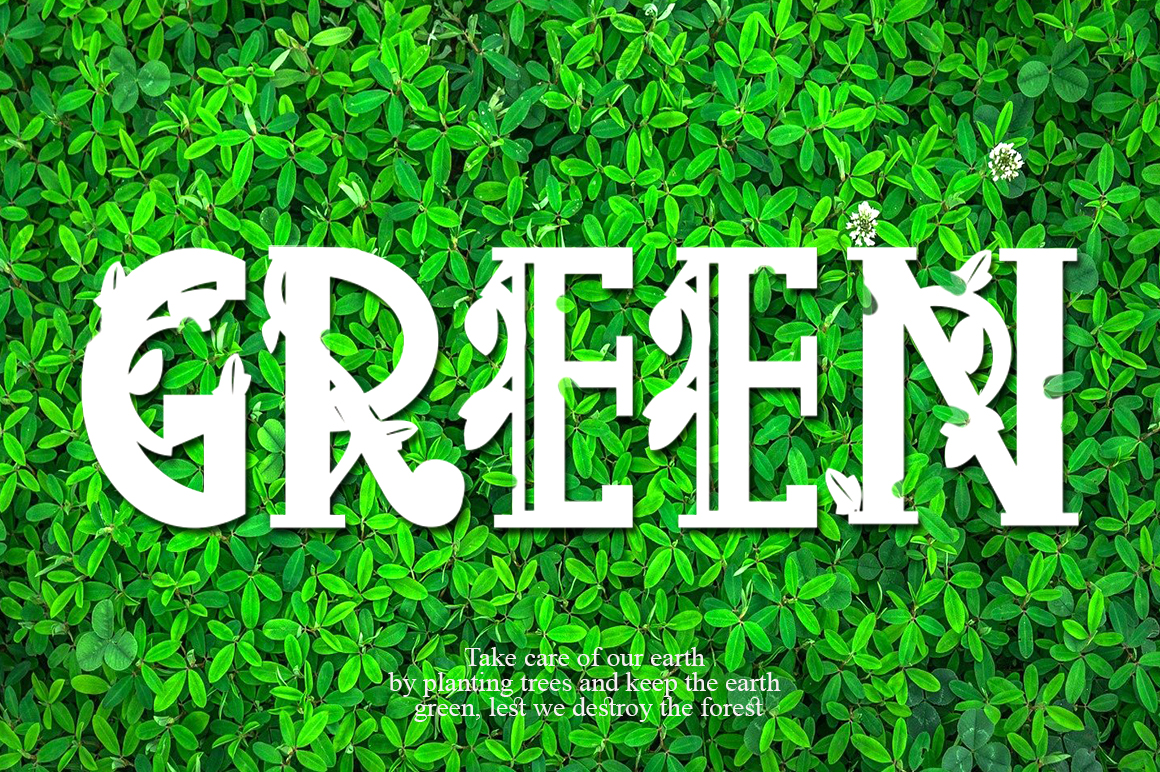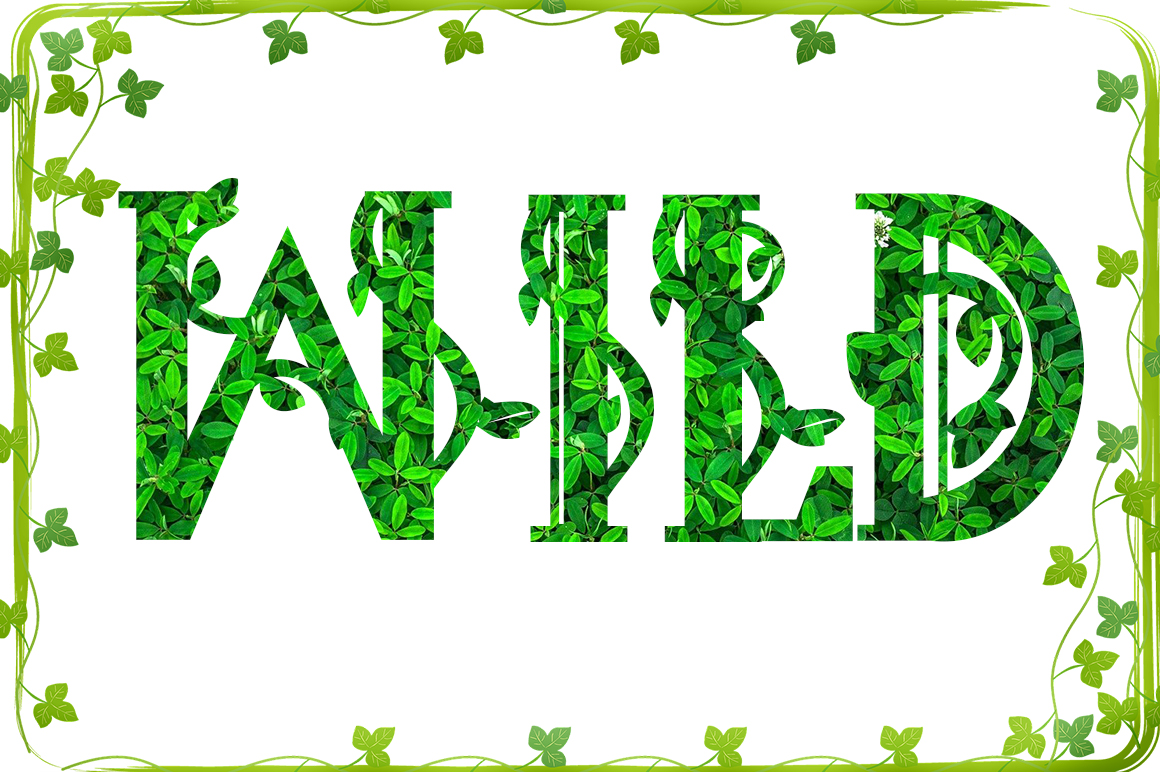
Joseph Font
Joseph Display Font
It’s an unique, distinct and assertive serif font. Expertly designed to make your creation look out of this world, this font has the potential to take your creative ideas far further.